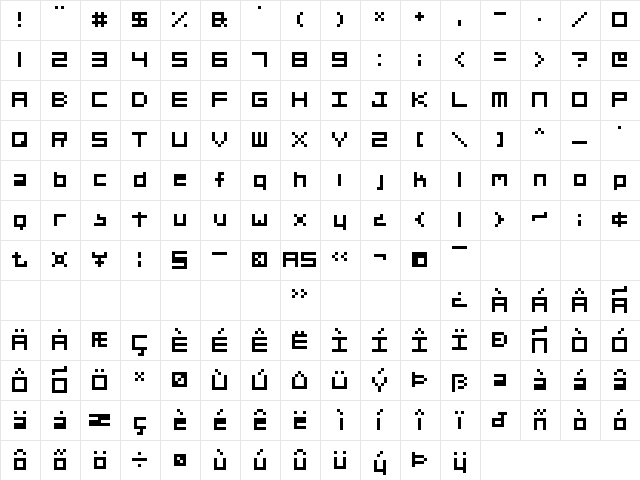
Org_v01 Regular
Design Context for Org_v01 Typeface
Org_v01 offers clean, dependable letterforms without strong stylistic allegiance, making it a practical choice for designers who need flexibility.